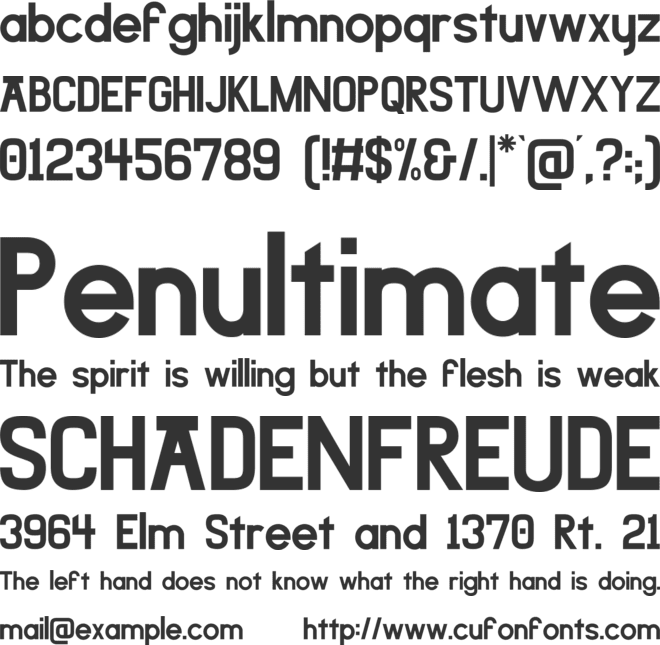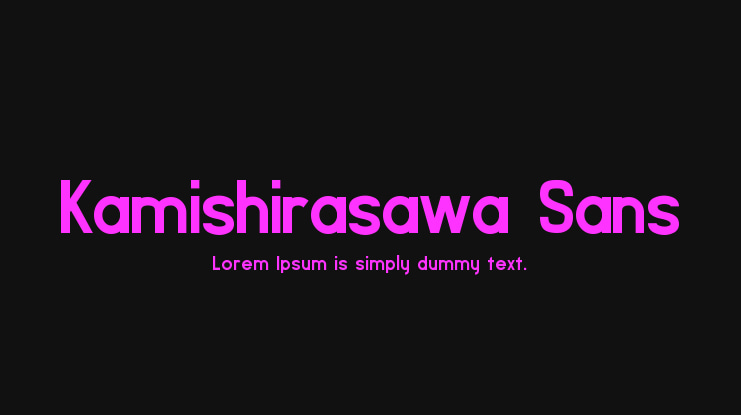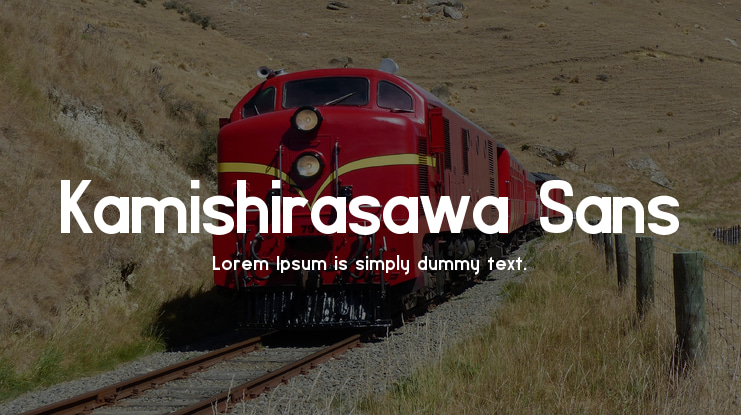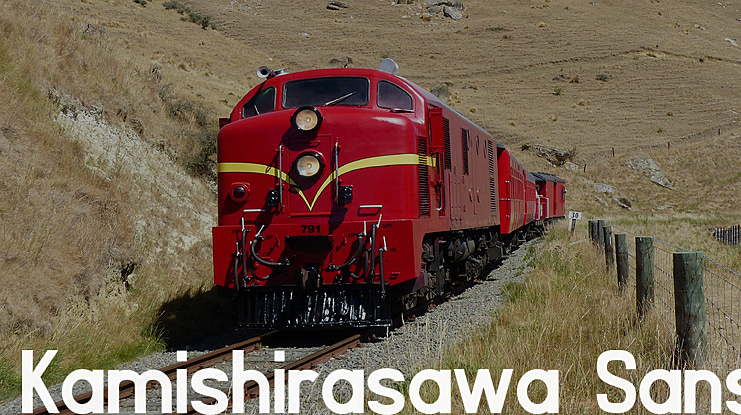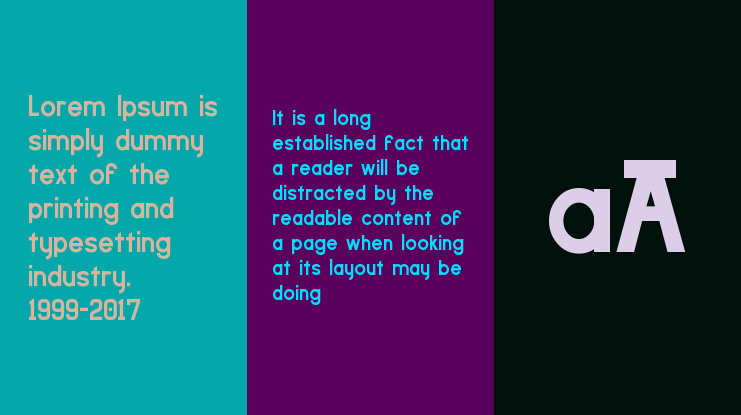
Kamishirasawa Sans Font
A compact sans-serif font slightly similar to the lettering of Belgian railway signs and the lettering of highway signs in Poland. Great for headlines as well.